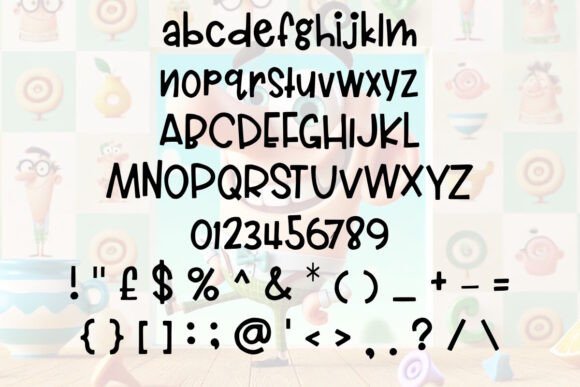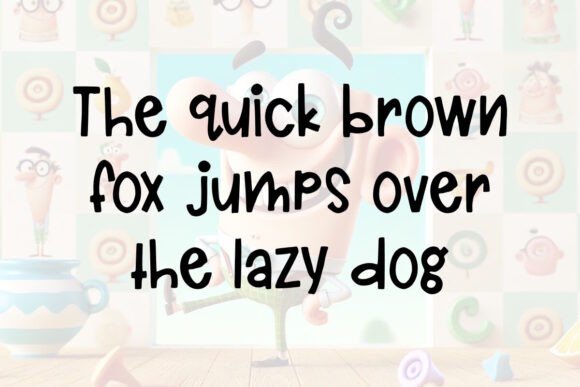
Introduction to Lopsided Larry Font Font
Fonts play a crucial role in design, and the Lopsided Larry Font font is a typeface that brings both character and versatility to any project. Whether you’re working on a branding project, a website, or a print design, the Lopsided Larry Font font offers a unique style that can elevate your work.
Lopsided Larry is a playfully uneven, hand-drawn font with a bouncy, offbeat charm.
Its letters have a natural wobble, some standing tall while others lean just slightly out of placeβlike theyβre mid-dance or caught in a giggle Perfect for fun, lighthearted designs, this font adds a touch of quirkiness and movement to anything from branding to invitations.
Key Features of Lopsided Larry Font Font
Why Choose Lopsided Larry Font Font?
The Lopsided Larry Font font is more than just a typeface β it’s a design tool that helps you communicate your message with style and clarity. Its unique character set and versatile design make it suitable for a wide range of applications, from elegant invitations to bold headlines.
With its carefully crafted letterforms and balanced proportions, the Lopsided Larry Font font ensures readability and visual appeal across all mediums.
What makes Lopsided Larry Font font special?
The Lopsided Larry Font font stands out with its unique design, exceptional readability, and versatility across various design applications.